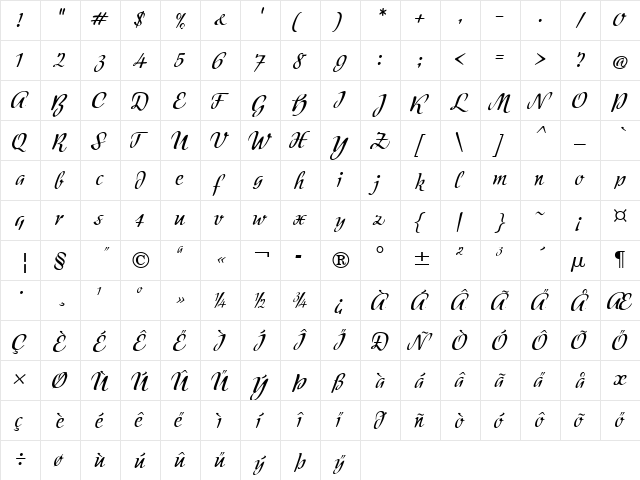
Modeschrift Regular
| Foundry | Peter Wiegel |
| Designer | Peterv Wiegel |
Design Context for Modeschrift Typeface
Modeschrift is a composed and adaptable typeface that performs quietly and consistently across a wide range of design contexts.